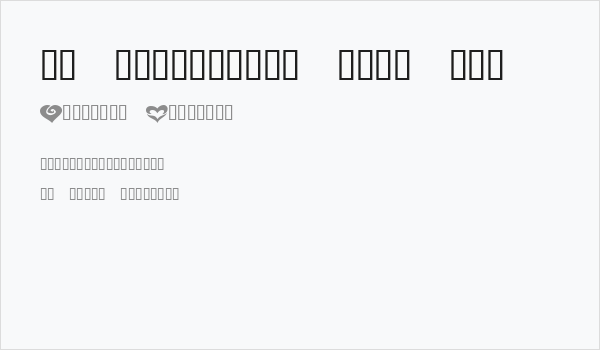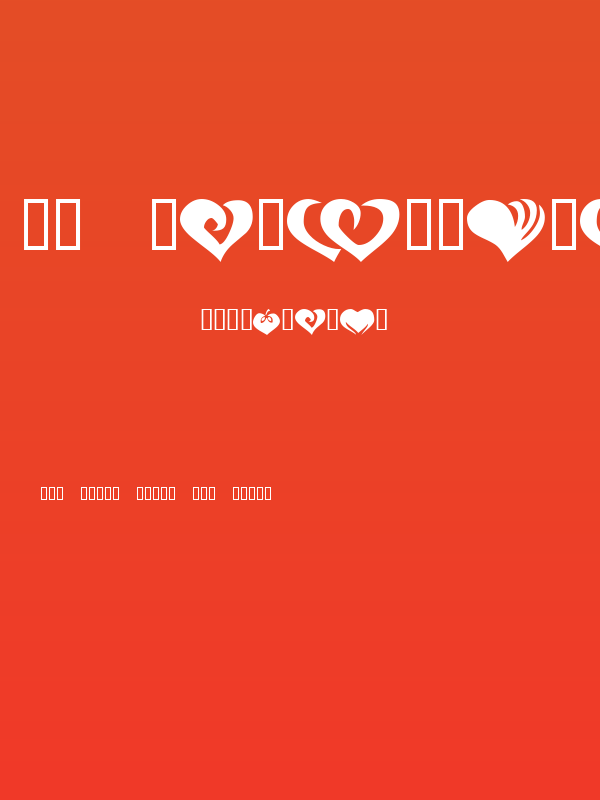
KR Valentines 2006 Two Font
KR Valentines 2006 Two Description
This is not a valid font. The image contains decorative heart shapes and symbols rather than a complete set of alphanumeric characters. The design is themed around Valentine's Day, featuring various heart motifs and romantic symbols. It appears to be more of a decorative element rather than a functional typeface for text.
| Use Case | Decorative elements, not suitable for text. |
| Proposed Projects | Suitable for Valentine's Day cards, romantic decorations, or themed graphic designs. |